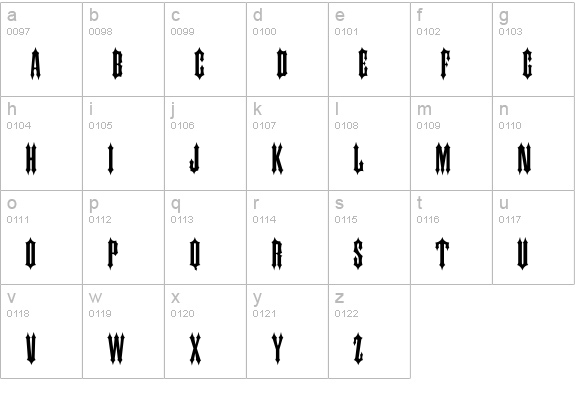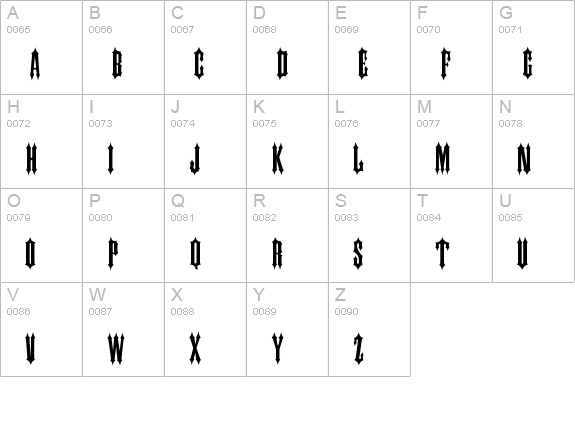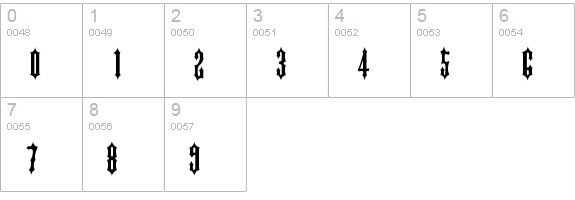
IRONWOOD-Medium is a balanced, medium-weight variant in the IRONWOOD typeface family \xE2\x80\x94 well suited to sub-headlines, navigation, and balanced editorial work.
IRONWOOD-Medium is a stunning and versatile font that exudes a sense of strength and elegance. With its clean lines and bold strokes, this font is perfect for creating eye-catching headlines, logos, and designs that demand attention. The carefully crafted letterforms of IRONWOOD-Medium strike the perfect balance between modernity and classicism, making it suitable for a wide range of projects. What sets IRONWOOD-Medium apart is not only its exceptional design but also its accessibility. This font is freely available to download at FontsMarket.com, allowing designers, students, and enthusiasts alike to experiment and create without any limitations. Whether you are working on a personal project or a professional assignment, IRONWOOD-Medium's availability as a free font ensures that you can bring your vision to life without breaking the bank. The versatility of IRONWOOD-Medium is further enhanced by its extensive character set, which includes uppercase and lowercase letters, numbers, punctuation marks, and special characters. This comprehensive range of glyphs enables you to convey your message effectively across various platforms and mediums. The timeless appeal of IRONWOOD-Medium makes it suitable for a multitude of design applications. From branding and packaging to digital and print media, this font adapts effortlessly to any project, adding a touch of sophistication and refinement. Whether you are aiming for a sleek and modern look or a more traditional and vintage aesthetic, IRONWOOD-Medium has the flexibility to fulfill your creative aspirations. Embrace the power and elegance of IRONWOOD-Medium and elevate your designs to new heights. Download this exceptional font for free at FontsMarket.com and unlock a world of possibilities for your next creative endeavor.